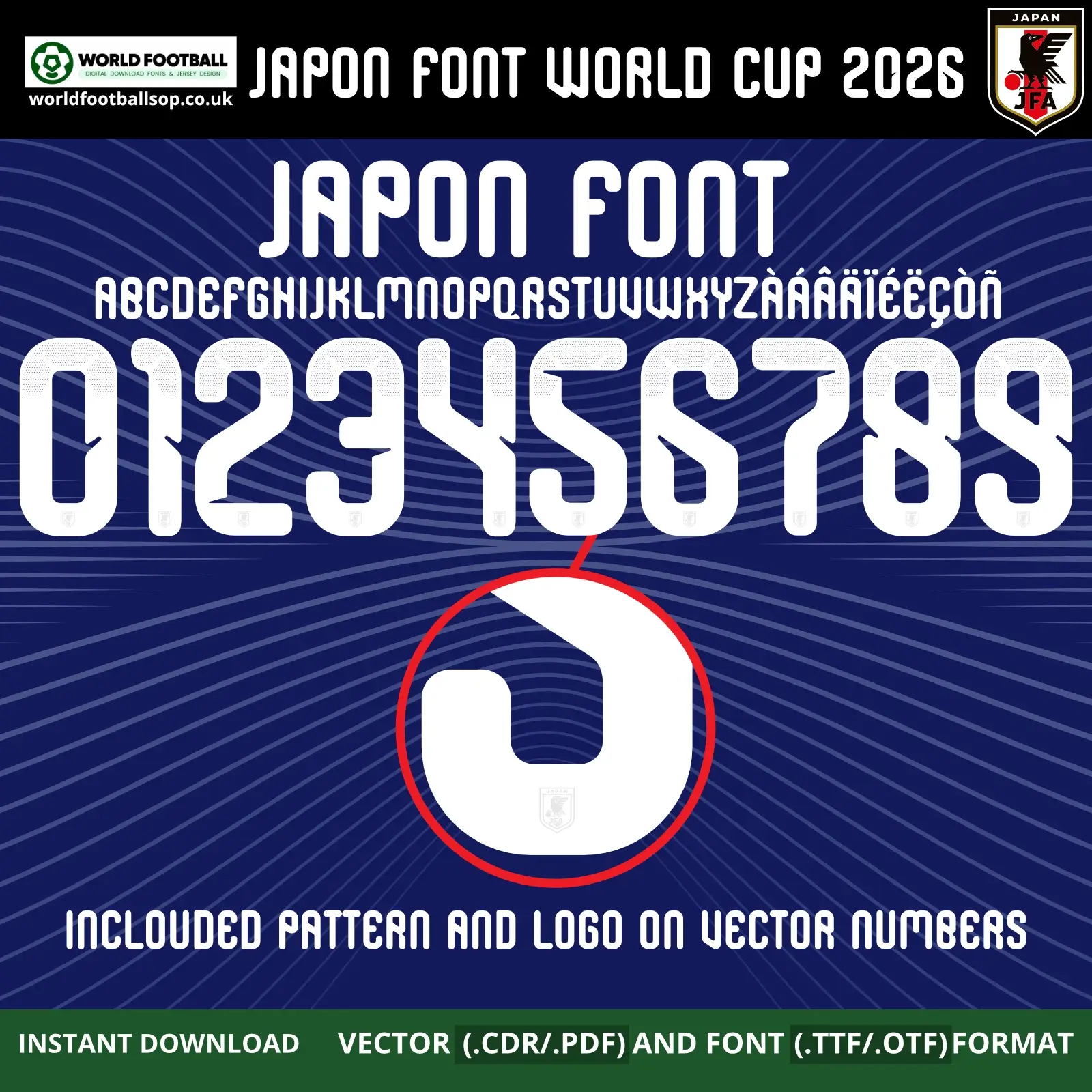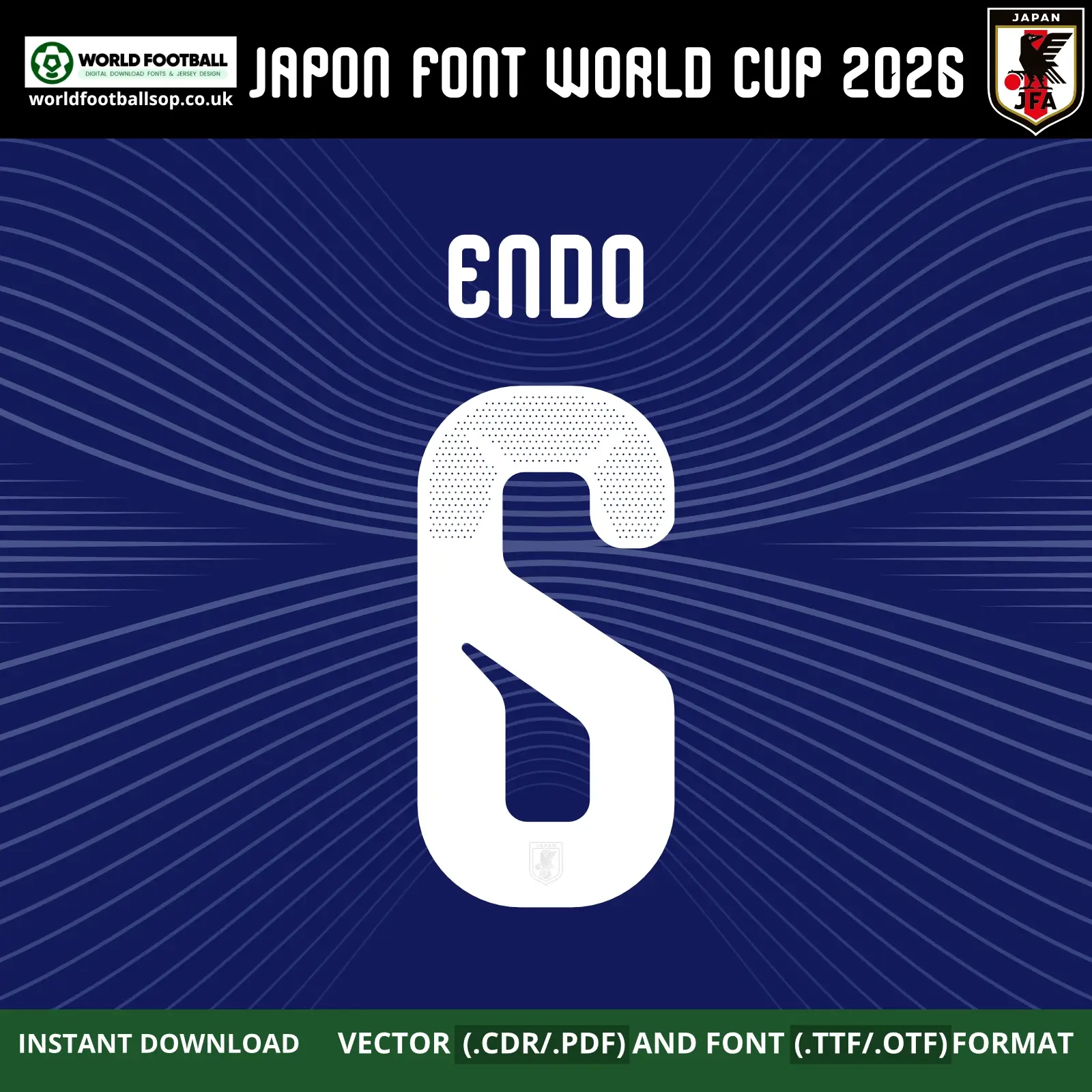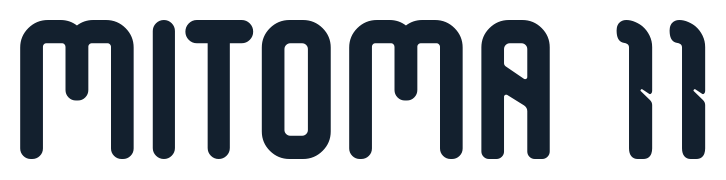
Japan Font World Cup 2026 - Horizon‑Inspired Samurai Blue Style
The Japan Font World Cup 2026 pack is designed to match the modern lettering used on Japan’s 2026 Adidas home kit. The numbers feature rounded shapes with a flat top edge and subtle cuts, plus perforated dot patterns in the upper area that echo the breathable texture of the real shirt. Set against deep Japan Blue, the white digits and letters stand out clearly, capturing the clean, futuristic look of the Samurai Blue on the world stage.
This font is perfect for fans, kit printers and digital designers who want authentic‑style Japan 2026 World Cup Namesets. The vector numbers include a small JFA crest at the base, while the TTF/OTF fonts are kept plain so they install smoothly on any system. Use them to create “Wataru ENDO 6”, custom player names, supporter jerseys, posters, thumbnails, or any football Font Vector that needs a strong Japanese identity.
Full uppercase A-Z alphabet plus extended characters (ÁÂÄÅÉÈÇÕ, etc.) for a wide range of player names
Numbers 0-9 in the Japan 2026 home kit style, ready for back, front or shorts printing
Official‑style look: Follows the Adidas 2026 home kit font with rounded shapes, subtle cuts and perforated ventilation holes in the upper number area.
Horizon pattern synergy: Works perfectly with the Japan 2026 “HORIZON” home shirt, which features ash‑blue wave lines across a deep blue base.